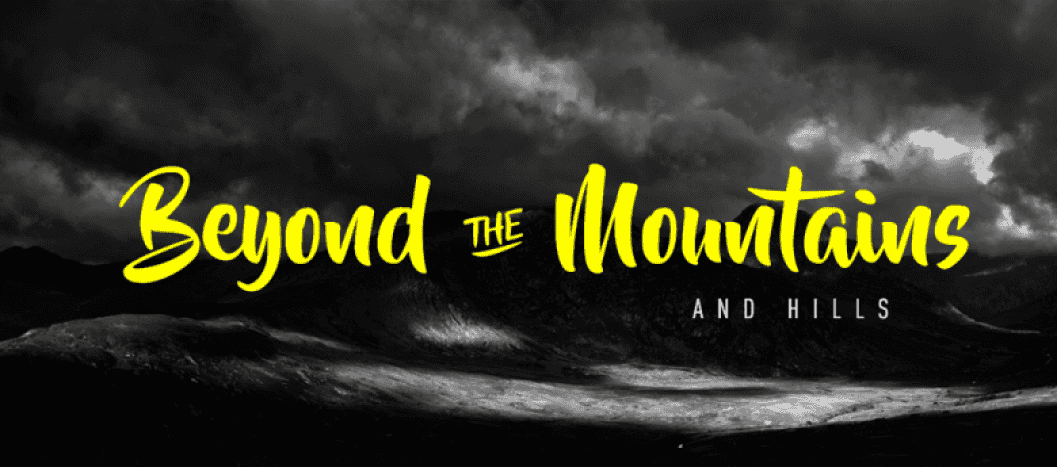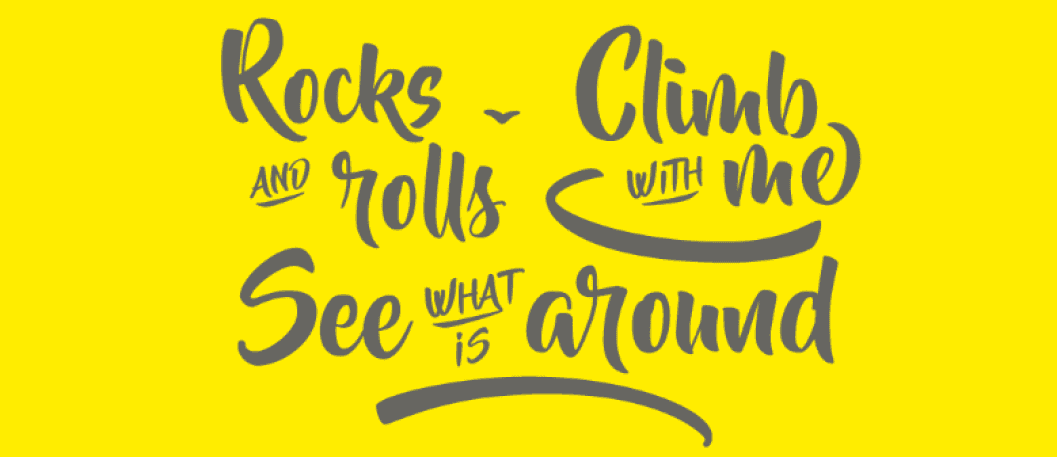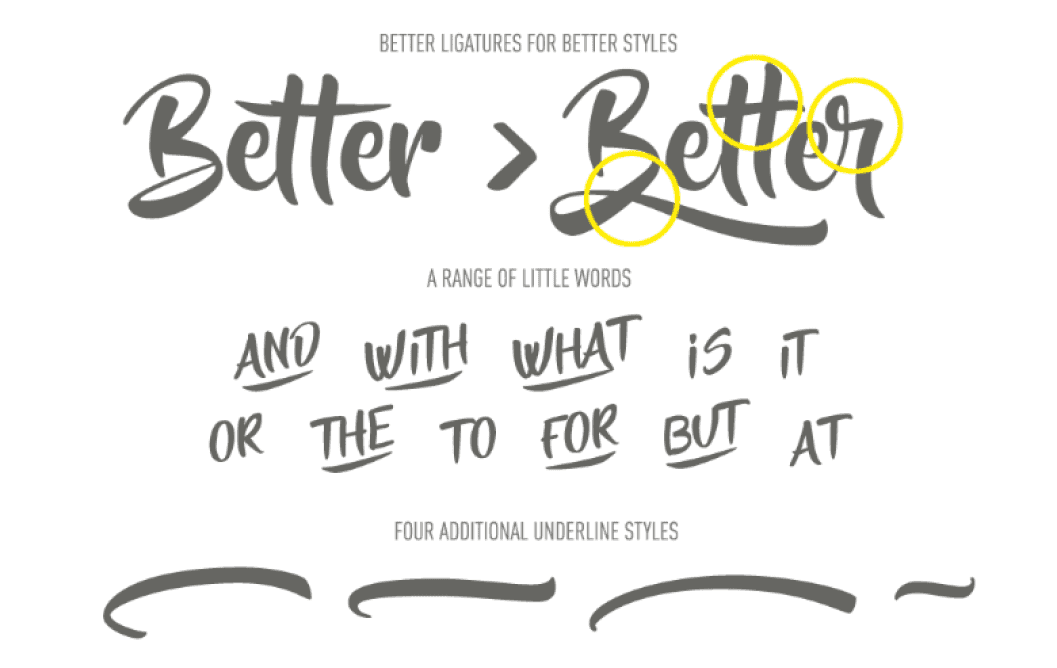
The font of Beyond The Mountains was developed by Sean Delloro & used with permission. Both versions also have a free and a paid version , which gives users access to a larger set of alternate glyphs, ligatures and other swashes to create your own style!